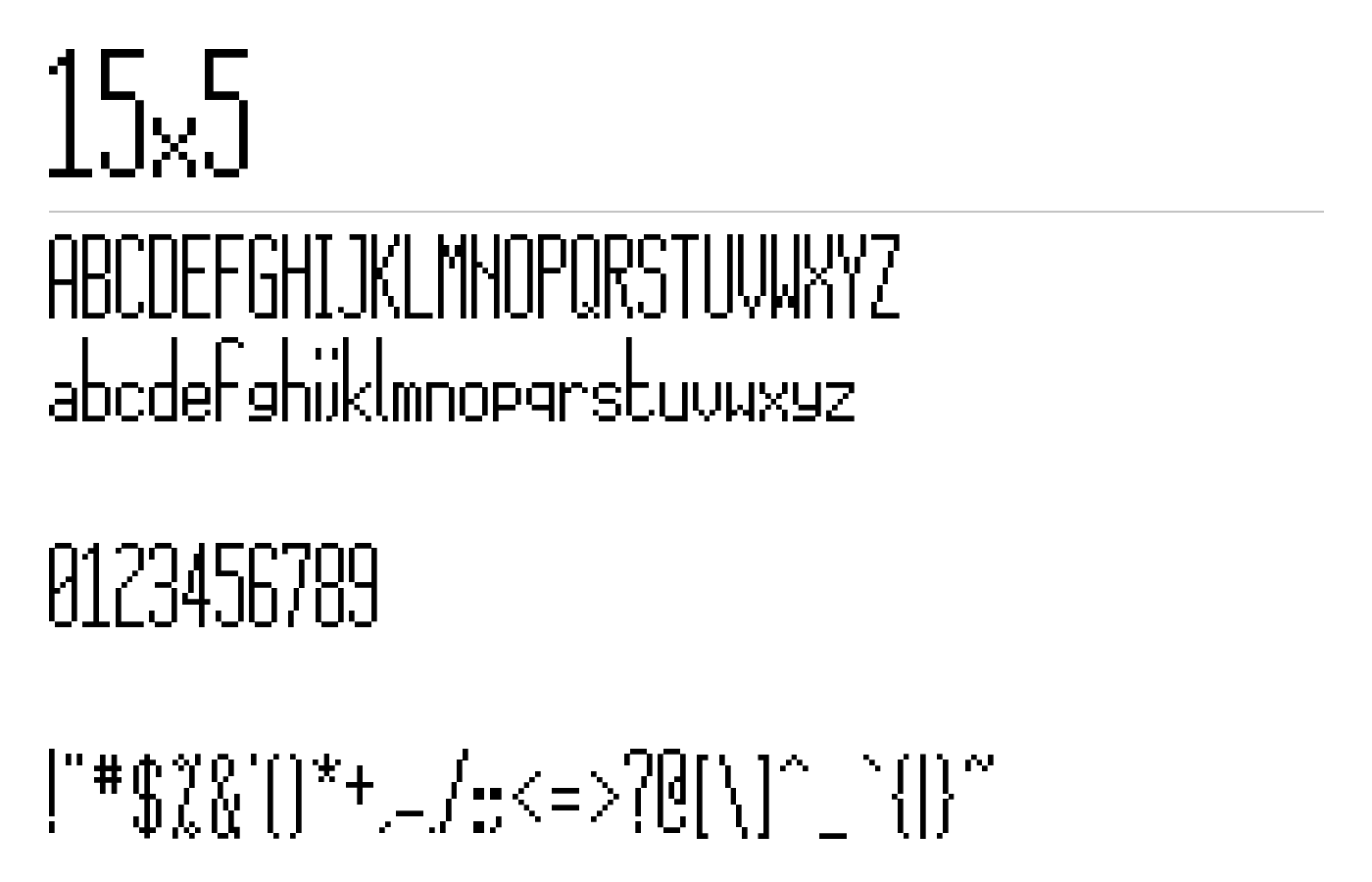
15x5 Font is a pixelated, monospaced sans serif typeface with a narrow, condensed width and tall, slender letterforms, giving it a distinctly digital, retro feel. Its low contrast and sharp, blocky strokes make it ideal for designs that want to evoke a techy, minimalist, or vintage computer aesthetic. This font works best for pixel art, coding environments, retro video games, and display use where clarity and a nostalgic digital style are key.
15x5 Font
About 15x5 Font
| Font family | 15x5 Font |
| Designer | jffry101 |